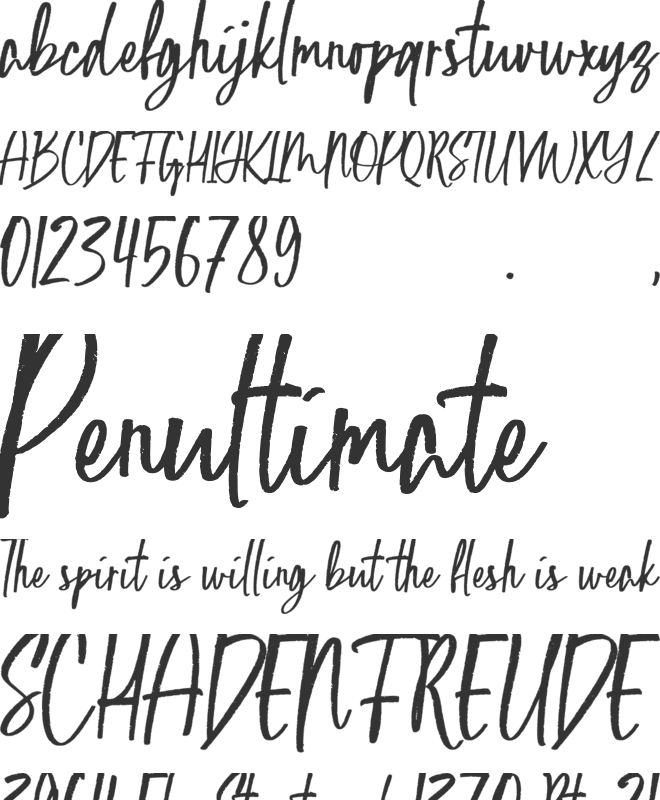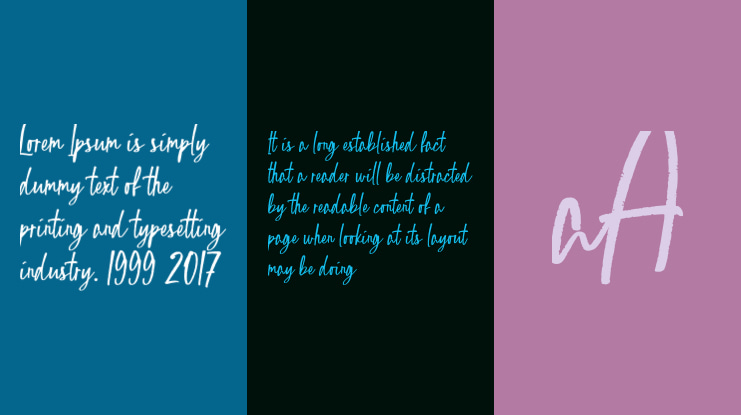
Azzam Ridhamalik
Raveling Melany is a messy handwritten font featuring wild capitals, shifting letter sizes, irregular baselines, and naturally textured strokes. It includes Regular and Blur styles, more than 50 ligatures, over 75 stylistic alternates, and three stylistic sets for creating varied handwritten compositions.
Designed for branding, editorial layouts, posters, apparel, packaging, magazine covers, and social media graphics, Ravelin Melany feels spontaneous and human without sacrificing readability. Its rough brush texture and smoother inky version give designers two distinct moods within one expressive typeface.